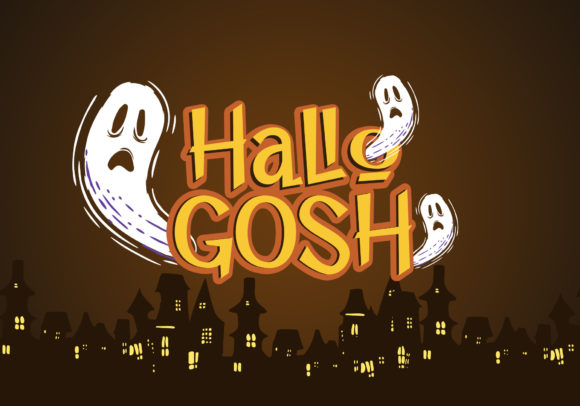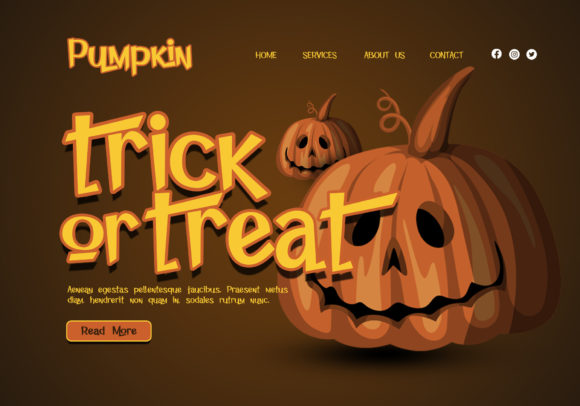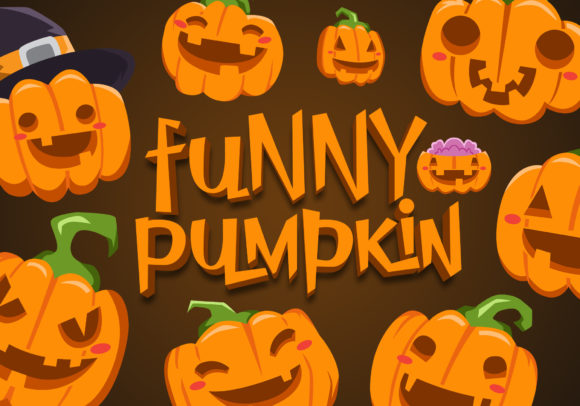
Introduction to Pumpkin Island Font
Pumpkin Island is a casual and spooky display font.
It embodies playfulness and authenticity and is the perfect choice for any children activity or school project .